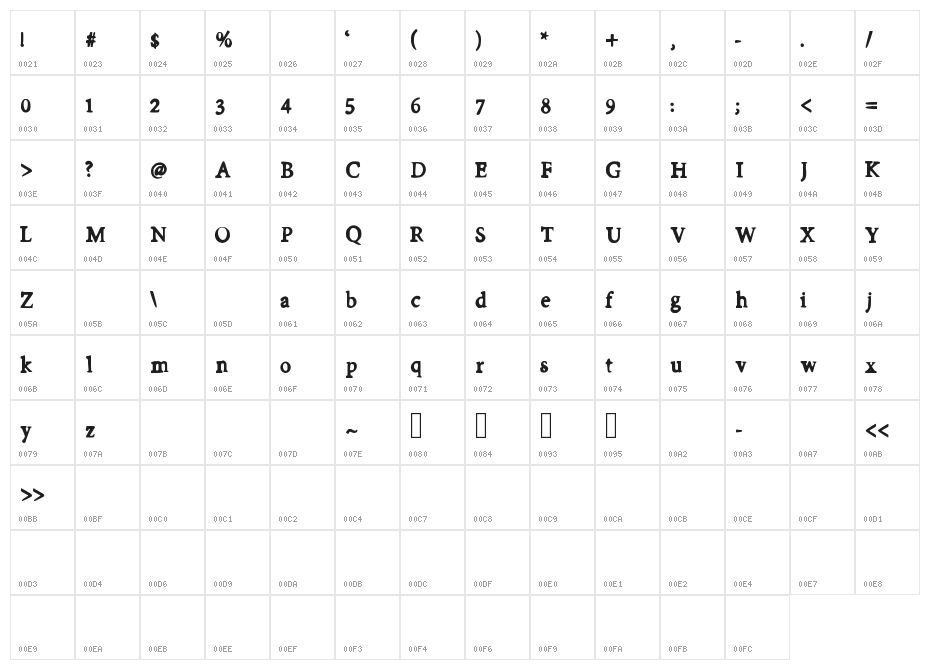
FirstDay Font
| Stile generale | Playful, Whimsical |
| Caso d'uso | Headlines, Logos, Creative projects |
| Progetti proposti | Ideal for children's books, playful branding, greeting cards, and creative posters. |